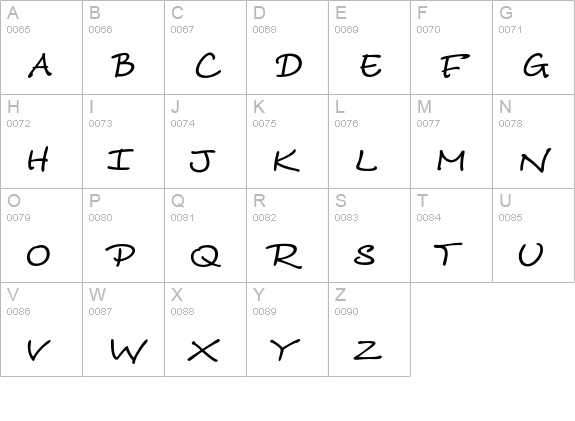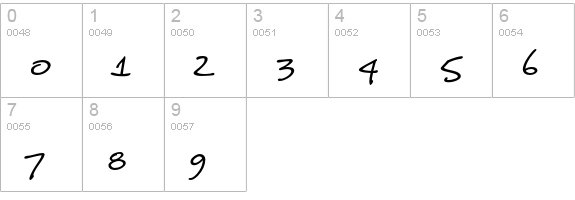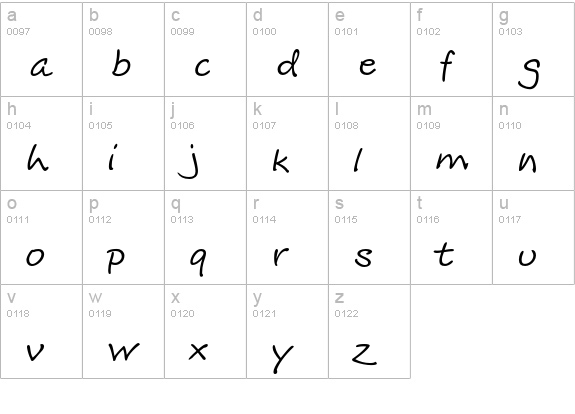
Mohawcs Note GD Font Details
Mohawcs Note GD font is a stylish and modern typeface that exudes creativity and innovation. With its bold lines and distinctive design, this font is sure to make your projects stand out. Whether you're working on a logo, poster, or website, Mohawcs Note GD font will add a touch of sophistication and flair to your work. The best part is that Mohawcs Note GD font is completely free to download at FontsMarket.com. This means that you can access this amazing font without any cost, making it a great choice for designers on a budget. Don't miss out on the opportunity to elevate your designs with the stunning Mohawcs Note GD font – download it today and see the difference it can make!